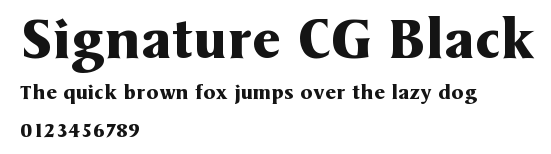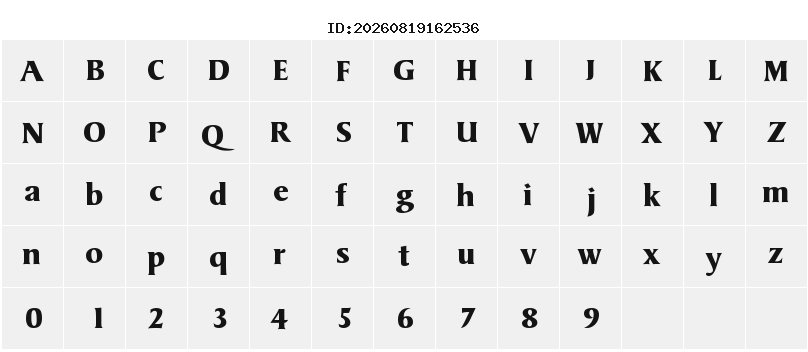
• Font Name: Signature CG Black
• Full Font Name: Signature CG Black
• Manufacturer: Miles Inc
About Signature CG Black.ttf
Signature CG Black.ttf is a modern, elegant sans-serif font designed for ultimate readability and visual harmony. Perfect for branding, headlines, web design, and print materials.